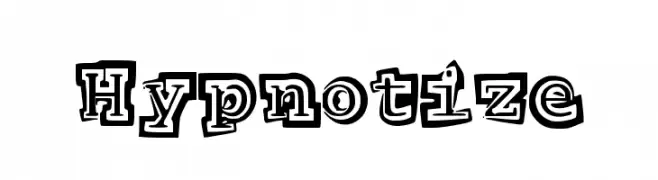
( Fonts by www.typodermicfonts.com - Ray Larabie )
A modern, geometric font with clean lines and a technical appearance.
( d[esign] - Domenico Mazza )
A pixelated, blocky font with a retro digital aesthetic.
( Fonts by Jacob Fisher - www.pizzadude.dk )
A playful, cartoon-like font with exaggerated, humorous characters.
A playful, hand-drawn font with quirky, irregular shapes and dot accents.
( MichaelKoebnick )
( Blacksun - refresh.rf.gd/ )
A casual, handwritten font with a playful and informal style.
A playful, hand-drawn font with bold, rounded characters.
( Fonts by www.typodermicfonts.com - Ray Larabie )
A modern, geometric font with clean lines and a balanced appearance.
( Fonts by Zuzulgo Studio )
A playful, handwritten-style font with irregular, whimsical letterforms.
A futuristic, geometric font with an abstract, coded appearance.
A bold, geometric font with a modern and strong visual impact.